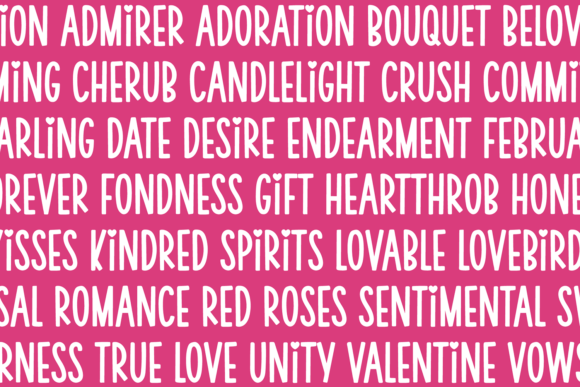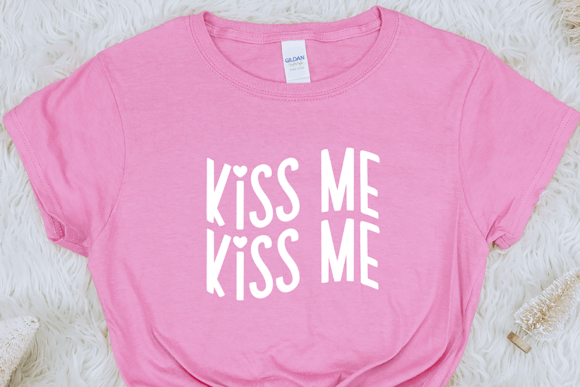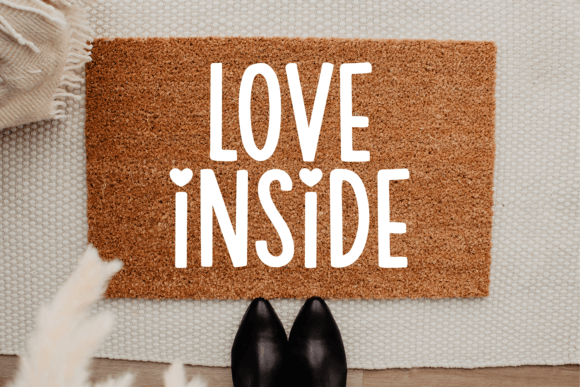
Cupid’s Candies Font: The Sweetest Addition to Your Valentine’s Day Projects
Are you looking for a font that’s as sweet as Valentine’s Day itself? Look no further than Cupid’s Candies, a charming font designed specifically for your Valentine’s and wedding projects. This adorable font is perfect for adding a touch of love and whimsy to your designs, and we’re excited to dive into its features and uses.
About Cupid’s Candies Font
Cupid’s Candies is a carefully crafted font that’s made to make your Valentine’s Day and wedding projects stand out. Its unique design is inspired by the classic symbols of love and romance, making it an ideal choice for anyone looking to create beautiful and memorable designs. Whether you’re a designer, crafter, or DIY enthusiast, this font is sure to capture the hearts of your audience.
Features of Cupid’s Candies Font
• Unique and Whimsical Design: Cupid’s Candies boasts a distinctive and playful design that’s sure to add a touch of magic to your projects.
• Perfect for Valentine’s Day and Wedding Projects: This font was made specifically for Valentine’s Day and wedding projects, making it an ideal choice for cards, invitations, decorations, and more.
• Versatile and Easy to Use: Cupid’s Candies is easy to use and can be applied to a wide range of projects, from digital designs to handmade crafts.
Uses for Cupid’s Candies Font
Cupid’s Candies font is incredibly versatile and can be used in a variety of projects, including:
• Valentine’s Cards: Create beautiful and personalized Valentine’s Day cards for your loved ones.
• Wedding Invitations: Make your wedding invitations truly special with this charming font.
• Crafts and Decor: Add a touch of love and whimsy to your Valentine’s Day crafts and decorations.
• Digital Designs: Use Cupid’s Candies in your digital designs, such as social media graphics, blog posts, and more.
Tips for Using Cupid’s Candies Font
To get the most out of Cupid’s Candies font, here are a few tips:
• Experiment with Colors: Try pairing the font with different colors and textures to add depth and interest to your designs.
• Mix and Match with Other Fonts: Combine Cupid’s Candies with other fonts to create unique and eye-catching designs.
• Use it for Headings and Titles: Cupid’s Candies font is perfect for headings and titles, adding a touch of whimsy and romance to your designs.
Cupid’s Candies font is a sweet and charming addition to any Valentine’s Day or wedding project. Its unique design and versatility make it an ideal choice for designers, crafters, and DIY enthusiasts alike. With its wide range of uses and easy-to-use design, Cupid’s Candies is sure to capture the hearts of your audience. So why wait? Download Cupid’s Candies font today and add a touch of love and whimsy to your designs!